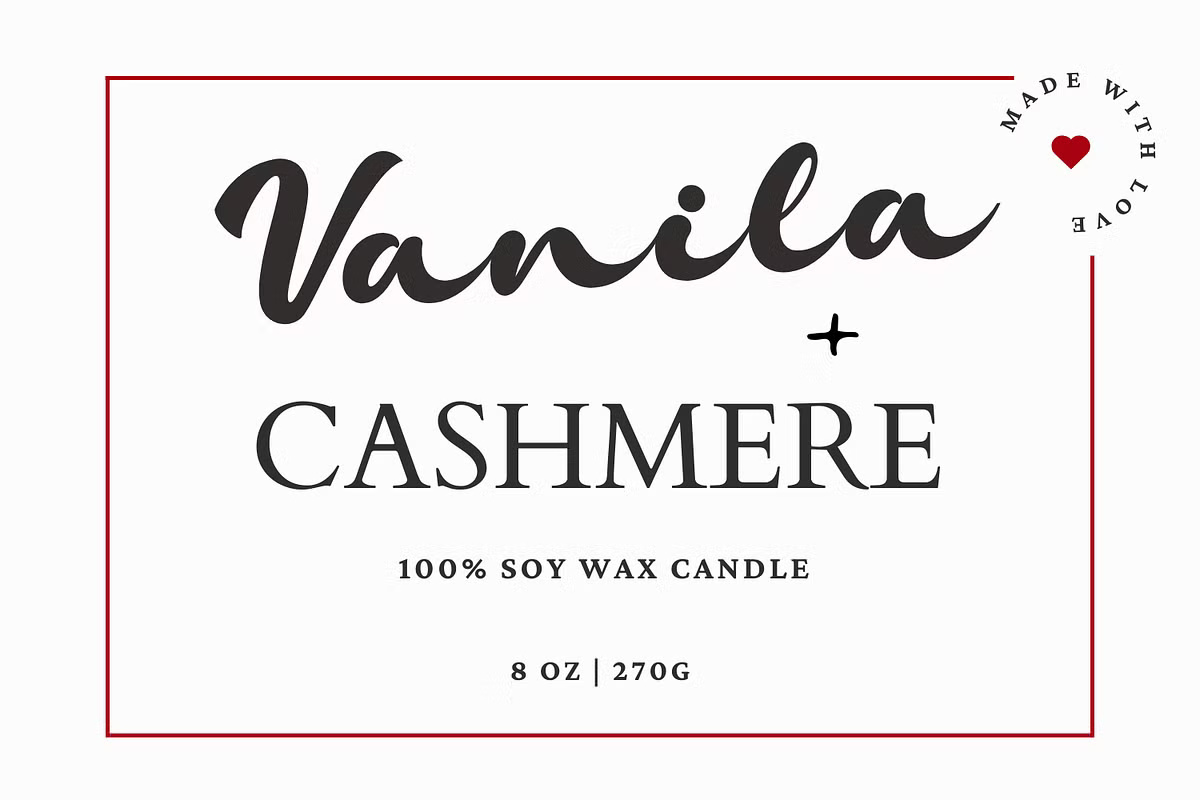
Millane Font
Millane is an elegant script typeface that seamlessly blends bold, flowing lines with a fresh, contemporary edge. Whether you’re designing a stunning logo, crafting eye-catching social media posts, or creating a sophisticated wedding invitation, Millane is the perfect choice to add a touch of class and uniqueness to your designs.